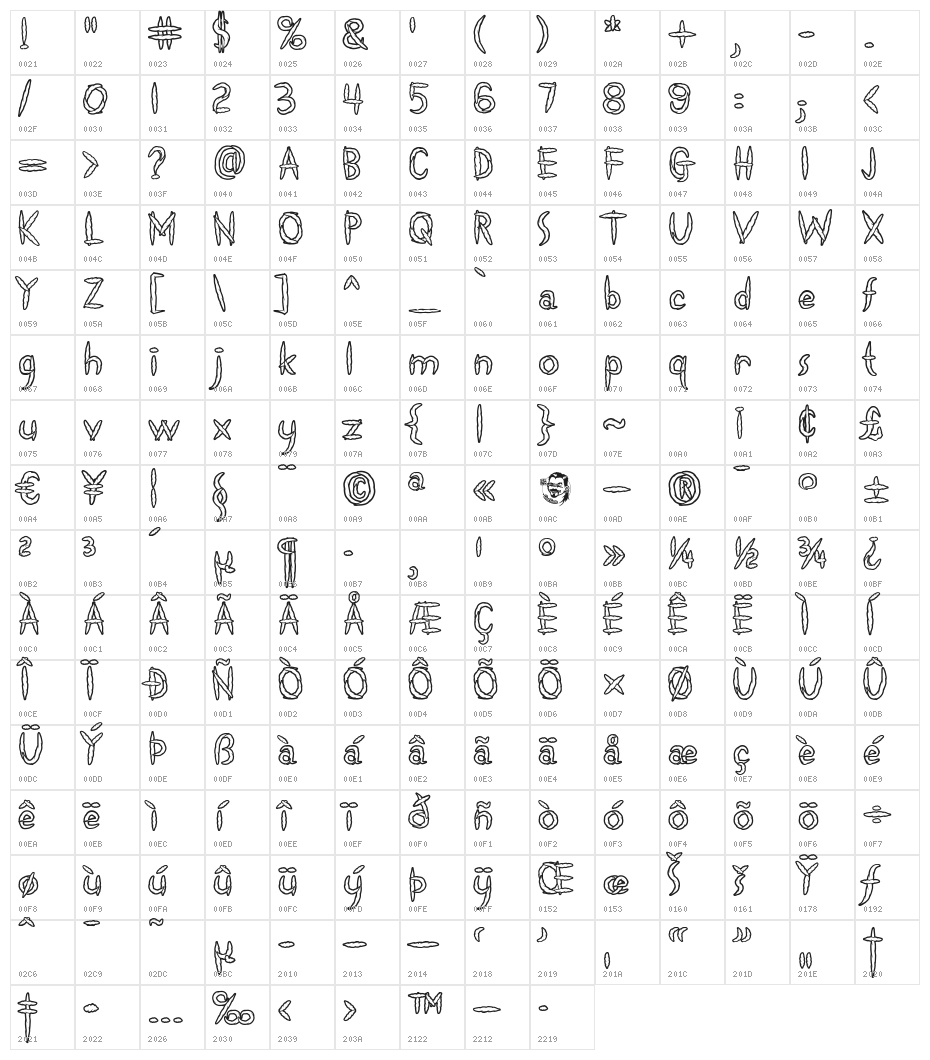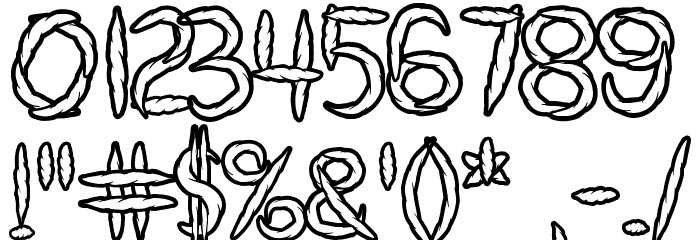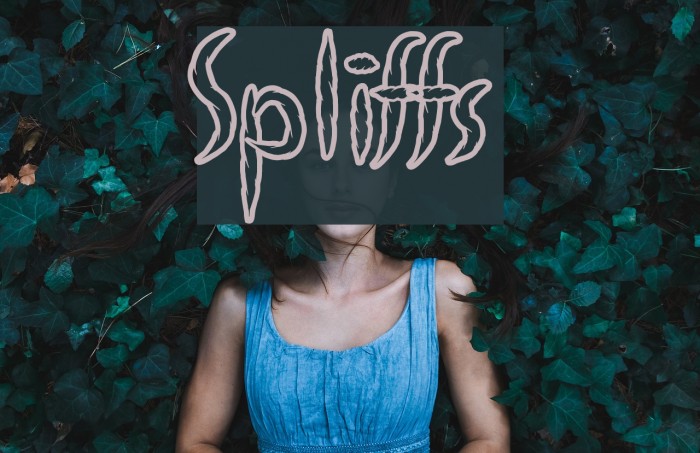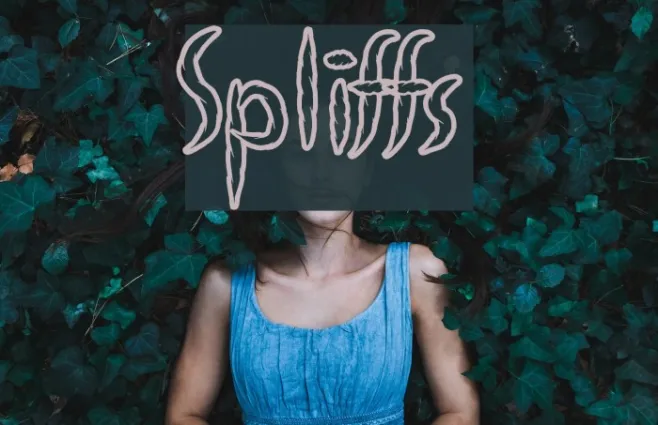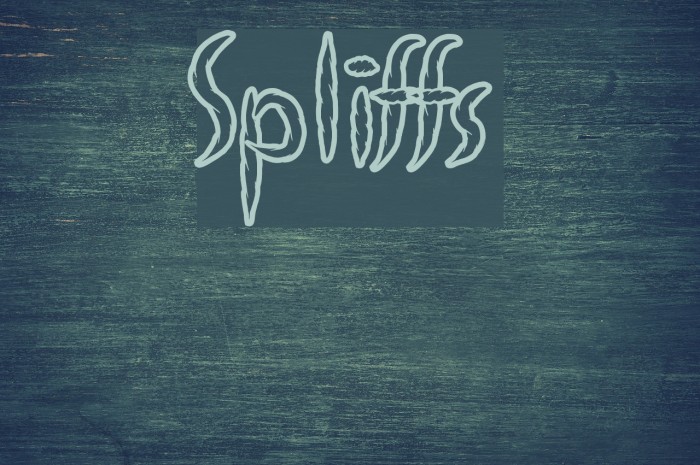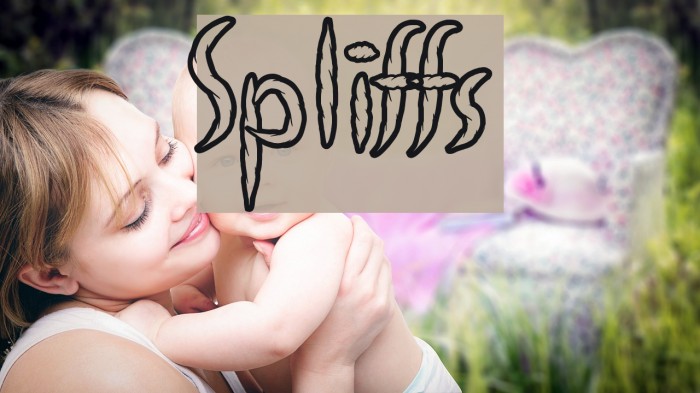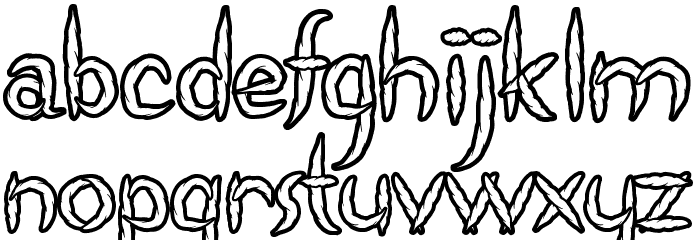
Spliffs Font
Spliffs Description
This font features a unique, hand-drawn style with a playful and organic appearance. The letters are bold and irregular, with a sketch-like quality that gives them a dynamic and lively feel. Each character appears to be outlined with a thick, uneven stroke, adding to the font's whimsical and artistic nature. The uppercase and lowercase letters maintain a consistent style, while the numbers and special characters complement the overall design. This font's distinctive look makes it stand out, offering a creative and informal vibe.
| Proposed Projects | Ideal for creative projects such as posters, children's books, greeting cards, and artistic branding. |